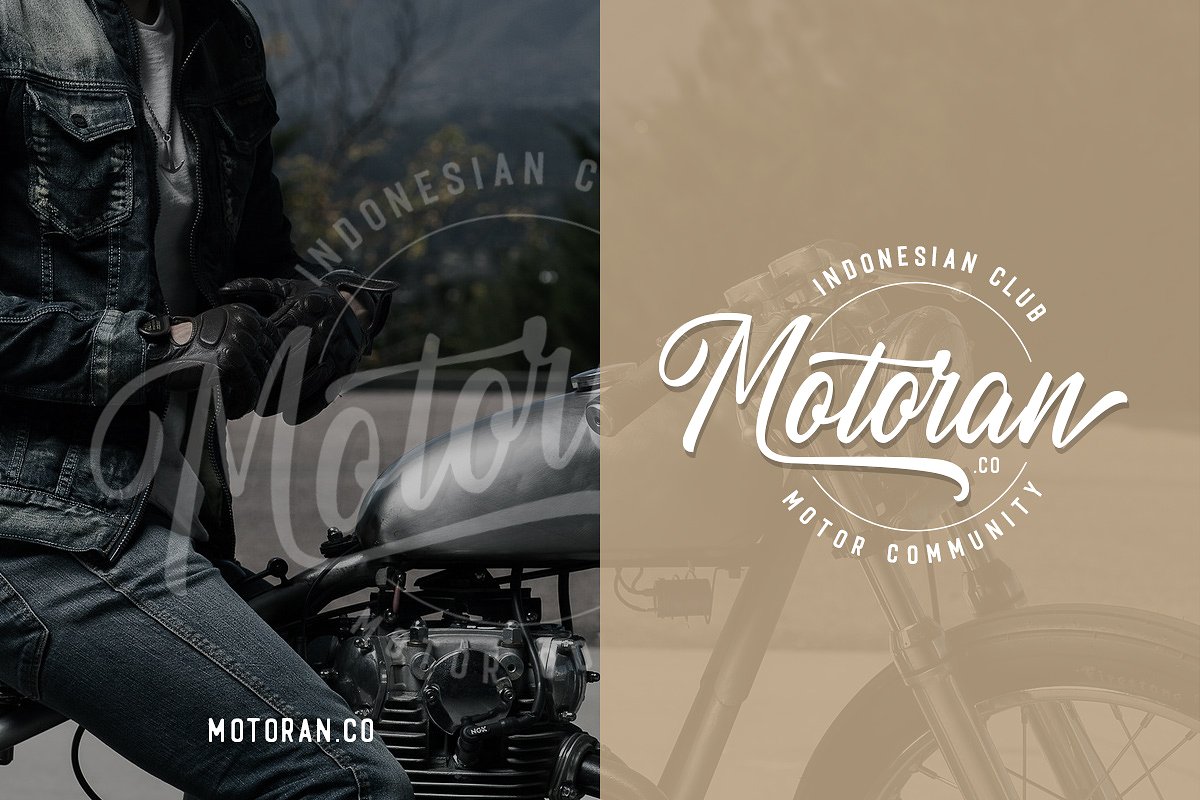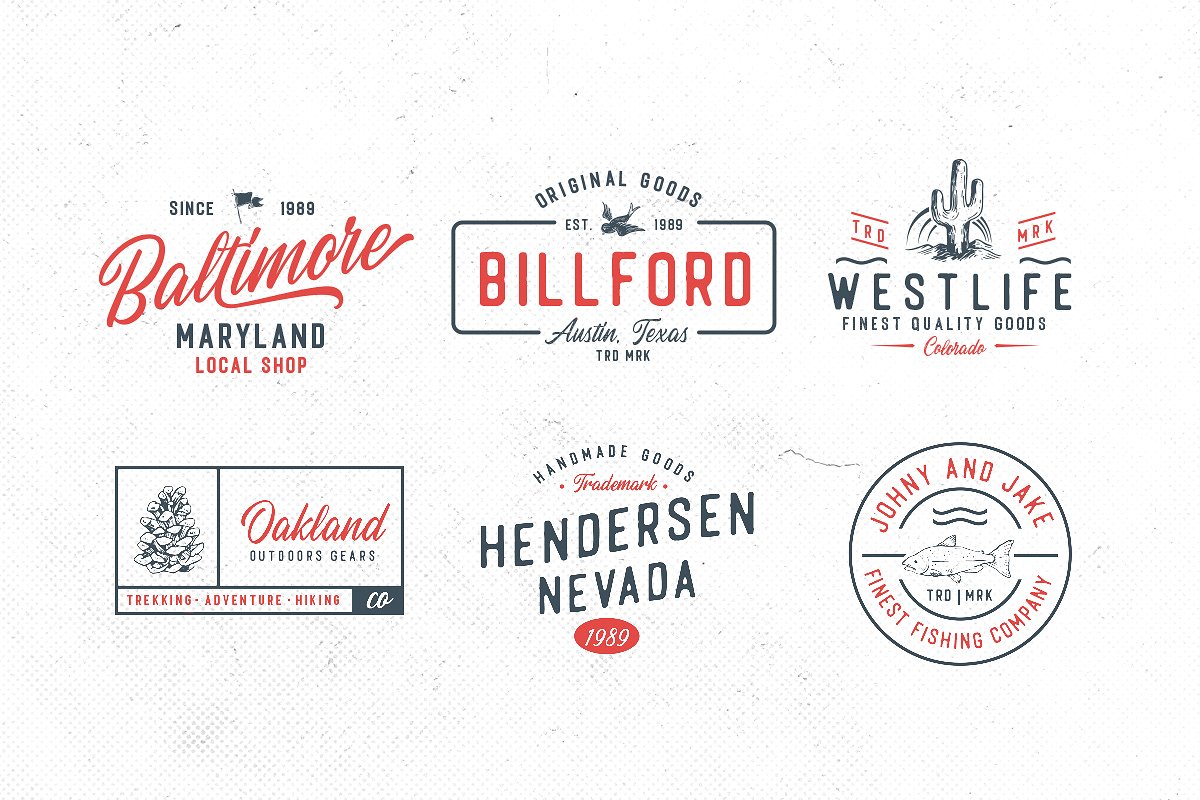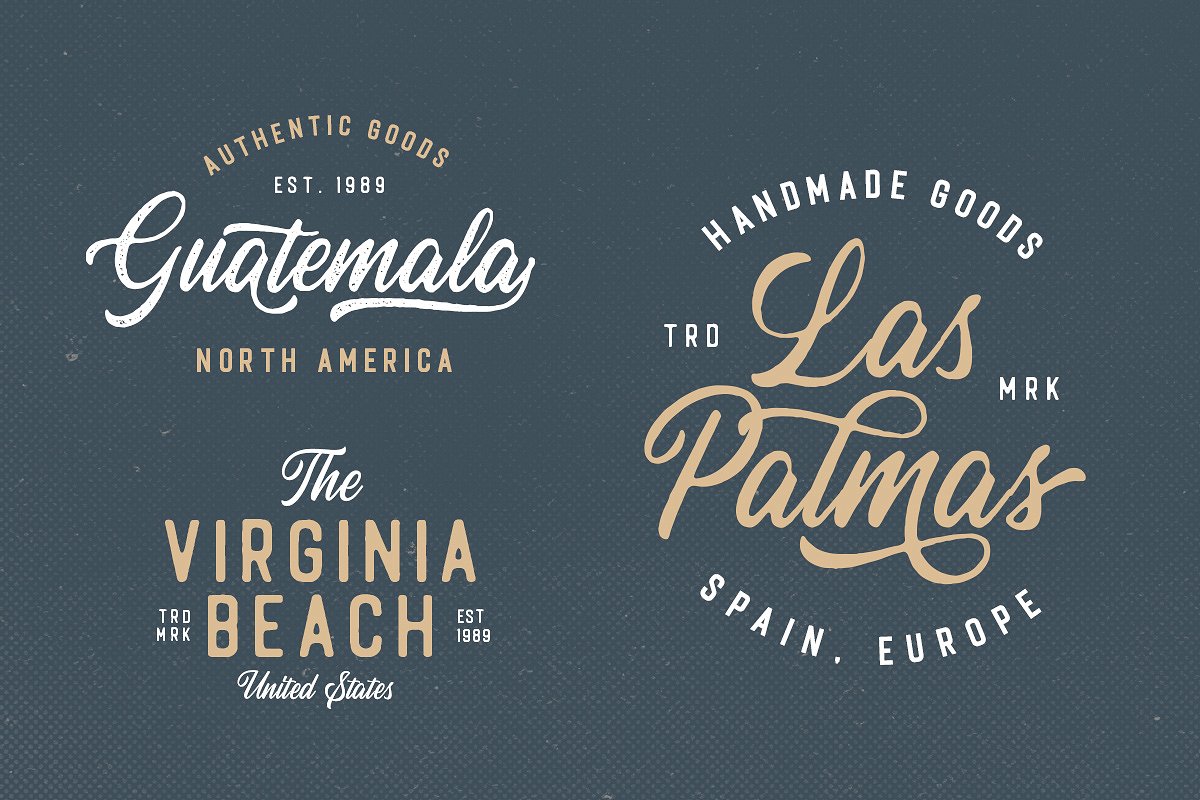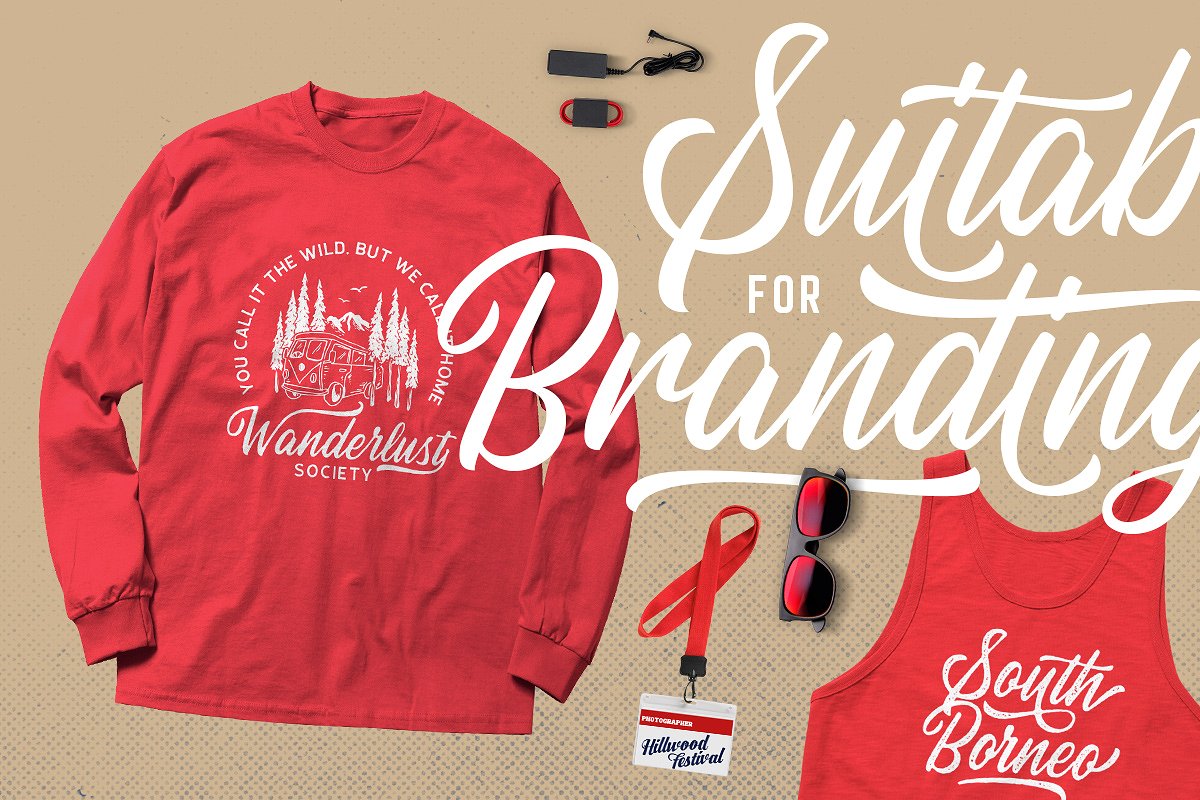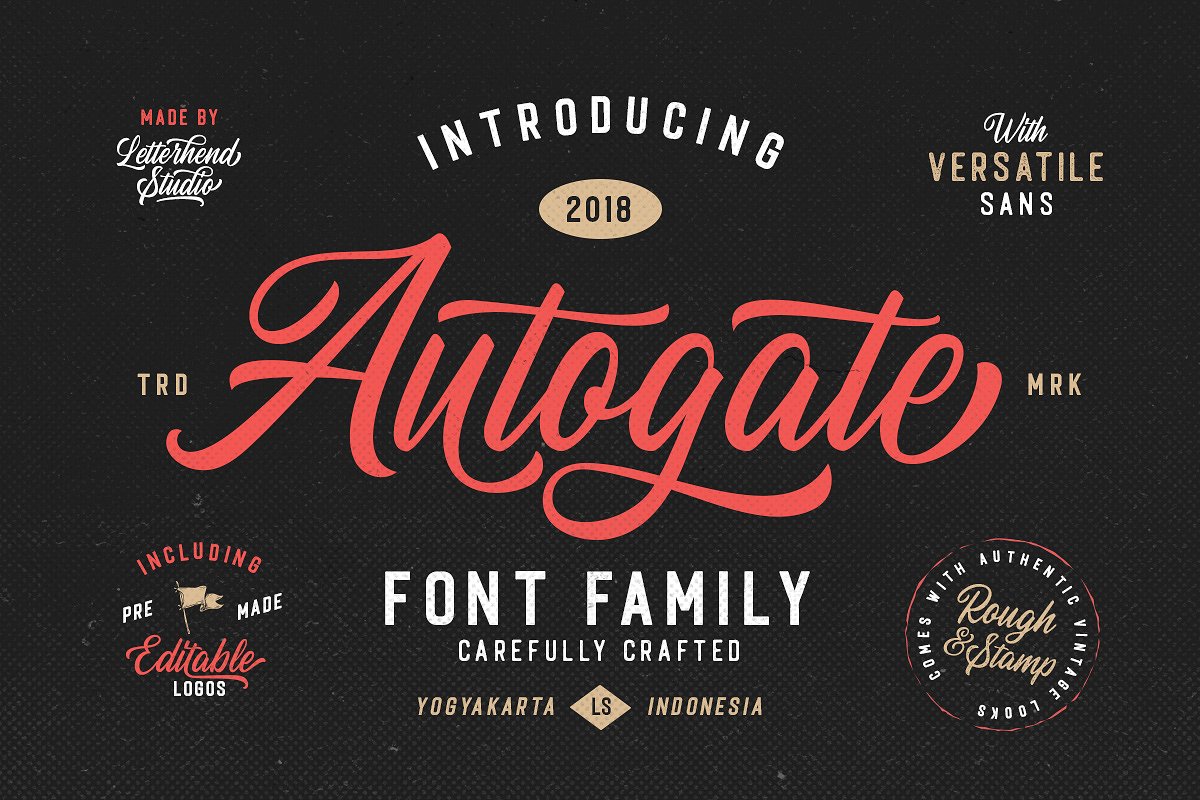
Autogate Font Duo
A new stylish font duo serif & script. It has a variety of unique, coded features to create compelling, handmade outcomes. Introducing Autogate Font Duo. The classic feel is really perfect for you who needs a typeface for especially logotype, apparel, invitation, branding, packaging, advertising etc. This typeface is comes in uppercase, lowercase, punctuations, symbols & numerals, 09 stylistic set alternate, ligatures, etc